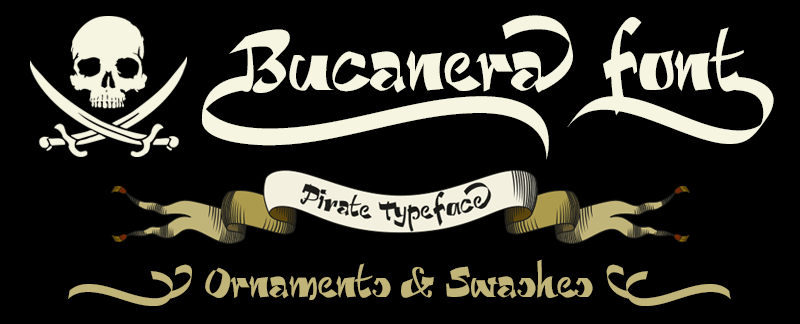
Font name: | Bucanera |
Bucanera is a calligraphic typeface inspired pirate with ornaments. ====================================== Use following keys to see the ornaments, try other combinations with contextual swashes in your favorite text editor (Indesign, QuarkXpress, Photoshop, Illustrator...): [ { -Initial ornaments- ] } -Final ornaments- ¬ | # -Terminal ornaments- Example keys for name font: [Bucanera# ====================================== This font is free for PERSONAL USE ONLY! • 12 contextual decorative ornaments for the beginning and end of words or phrases, alternative letters, Swashes and other Open Type features. • Look at the attached PDF to see all the functions Open Type and the txt file for usage keys. • If you want the commercial version is available at: https://defharo.com/fonts/bucanera-font/ Thank you for downloading this font |